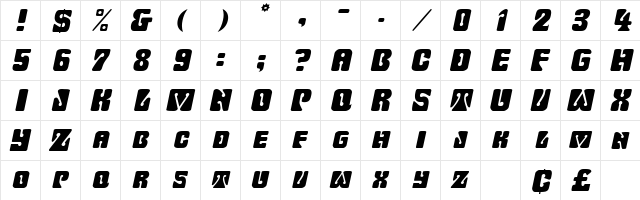
WavyOrnamental Oblique
Design Context for WavyOrnamental Typeface
WavyOrnamental is built around its visual character rather than neutral utility — its distinctive forms are designed to make an impression at display sizes. Its italic angle brings a sense of urgency and motion to the letterforms.
Font Pairing: Pair with a clean neutral sans-serif for body copy to let WavyOrnamental's character lead without overwhelming the composition.
Pro Tip: Use WavyOrnamental exclusively at display sizes — it was designed to be seen, not read at length. Let a neutral companion handle body copy.